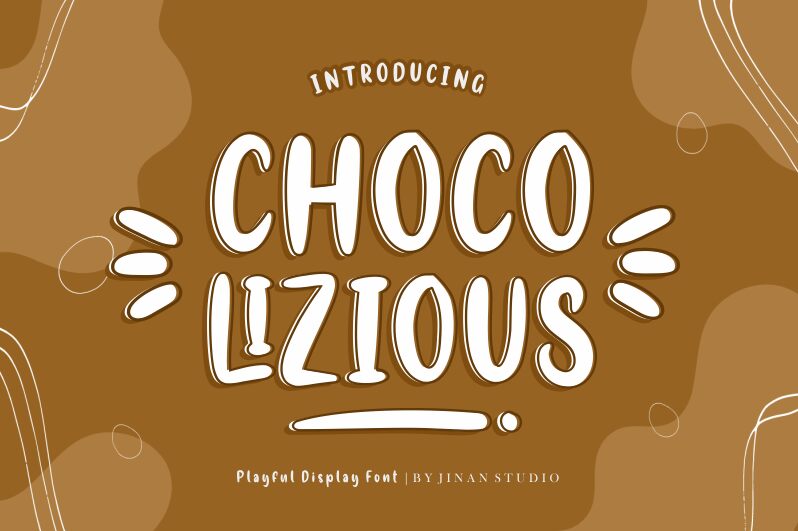
Chocolizious
Chocolizious by Andi Syahdang is a font that exudes warmth and charm, crafted with the spontaneity of brush strokes that bring an organic, hand-painted feel to any project. This typeface stands out with its bold personality and playful elegance, making each letter appear as though it was artfully brushed onto the canvas with care and flair. Its distinctive style makes it ideal for projects that demand a touch of whimsy and personalization, such as creative branding, attractive packaging designs, or captivating editorial headlines.
Chocolizious invites viewers into a world where typography meets artistry, adding a deliciously inviting character to any visual composition.